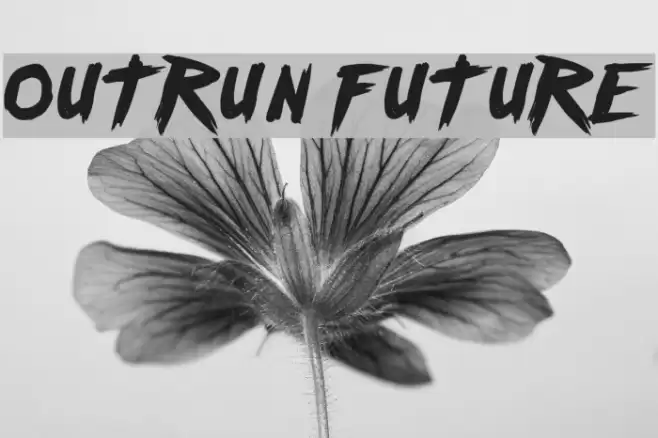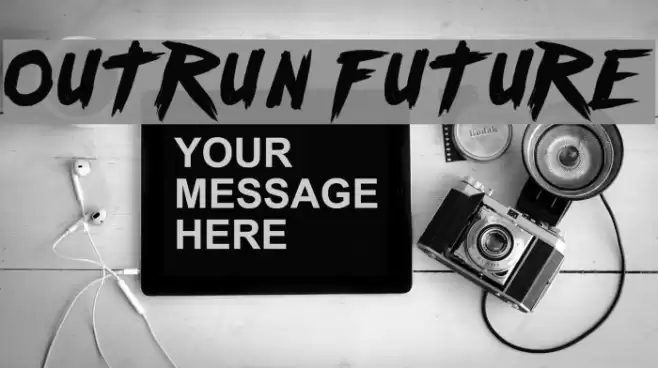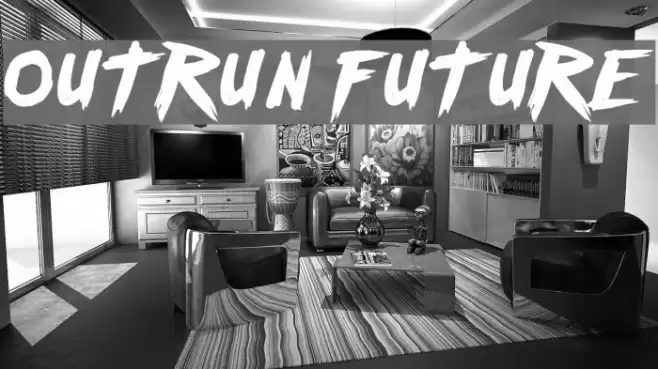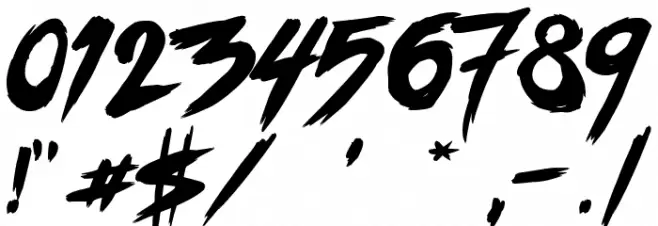
outrun future Font
outrun future Description
This font exudes a dynamic and energetic vibe, characterized by its sharp, angular strokes and bold presence. The letters appear as if they are in motion, with a brush-like texture that adds a sense of urgency and modernity. The uppercase and lowercase letters maintain a consistent style, with exaggerated angles and a slightly aggressive feel. The numerals and special characters follow the same aesthetic, ensuring a cohesive look across all elements. This font is perfect for projects that require a bold statement, capturing attention with its unique and edgy design.
A dynamic, brush-style font with sharp, angular strokes and a bold presence from Comic fonts.
- Proposed Projects: Ideal for music album covers, sports branding, video game titles, and edgy advertising campaigns.
- Character Spacing: Tight